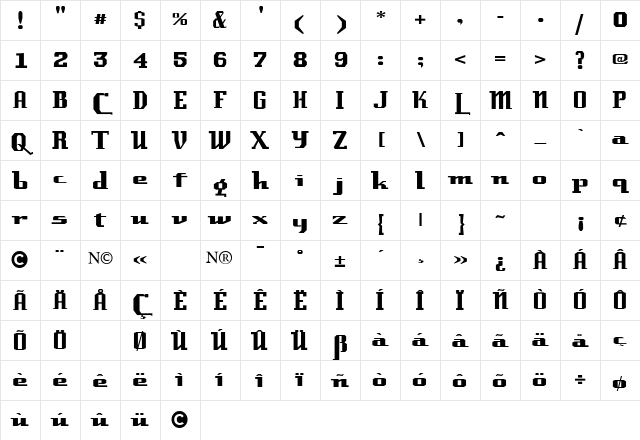
Laundrette Regular Free Font
Laundrette Regular
Laundrette Family
Design Context for Laundrette
Laundrette is a composed and adaptable typeface that performs quietly and consistently across a wide range of design contexts.